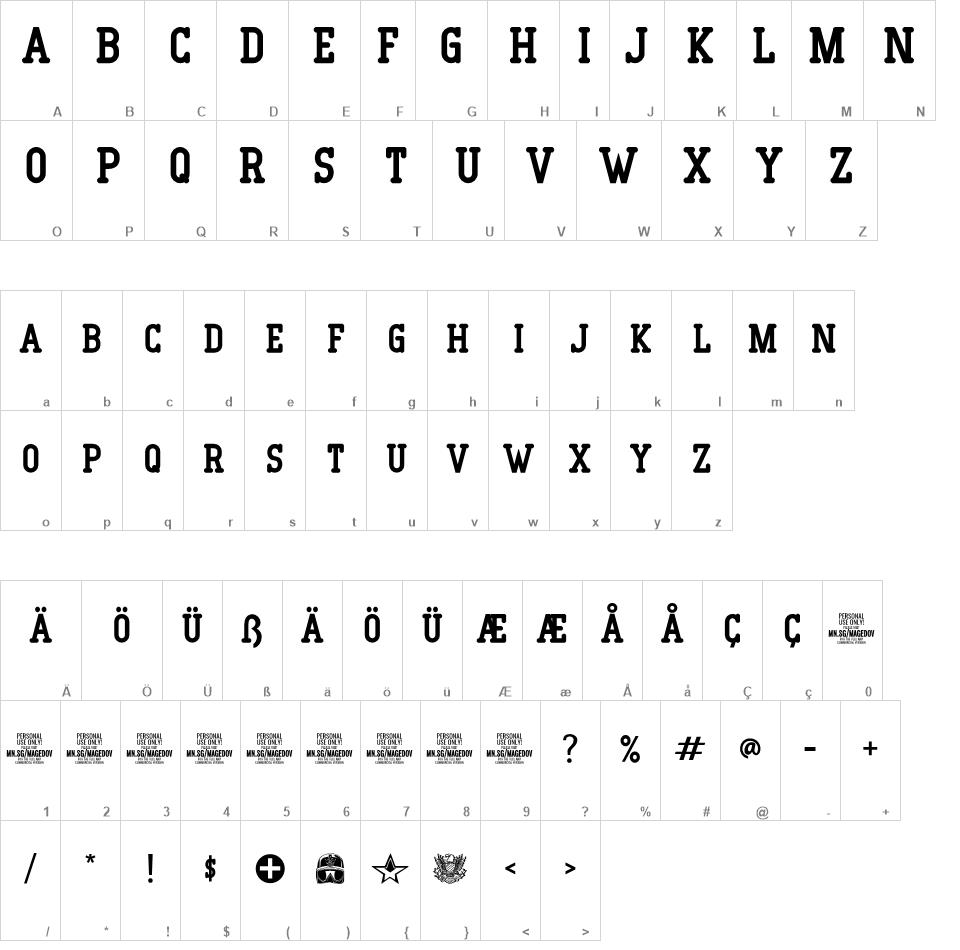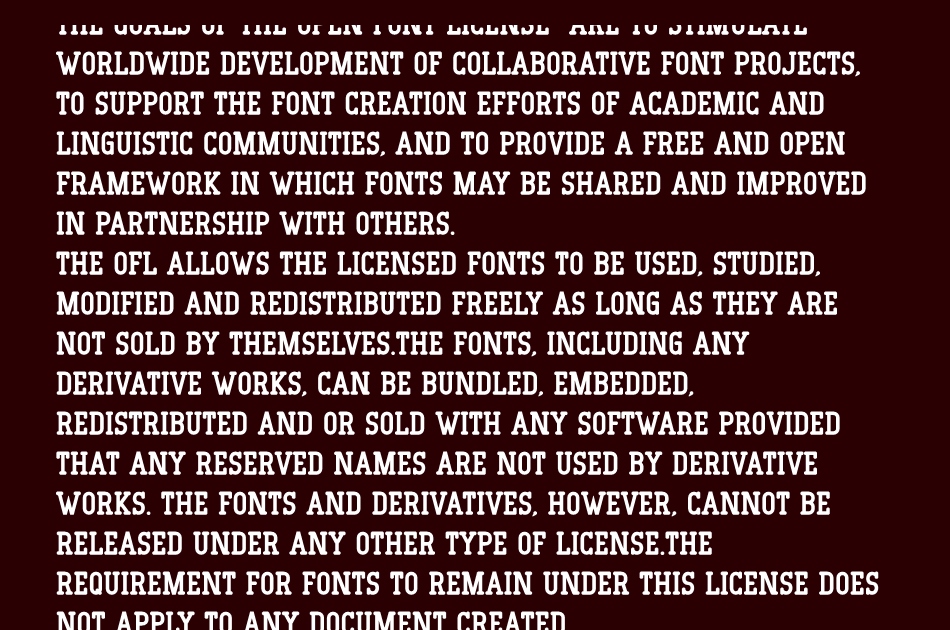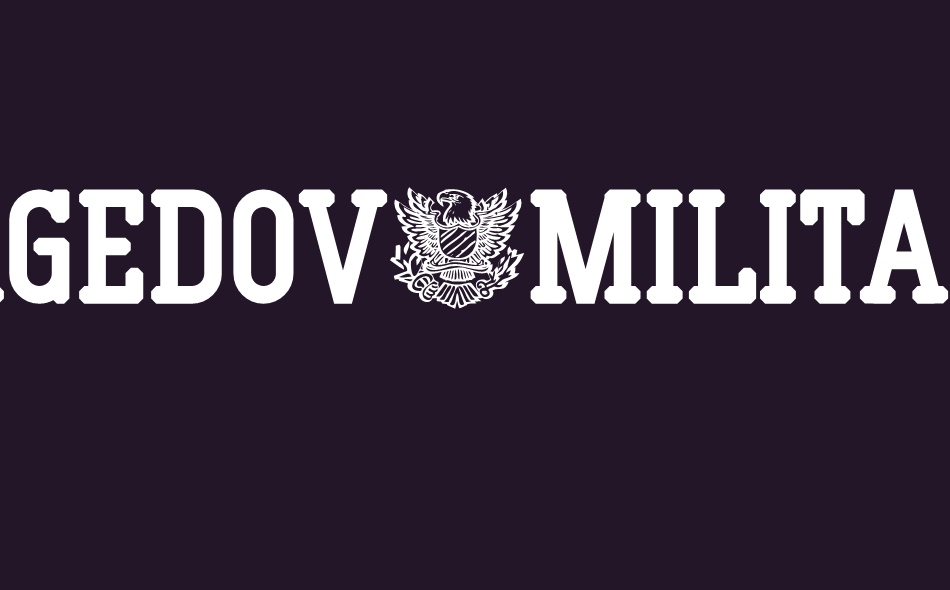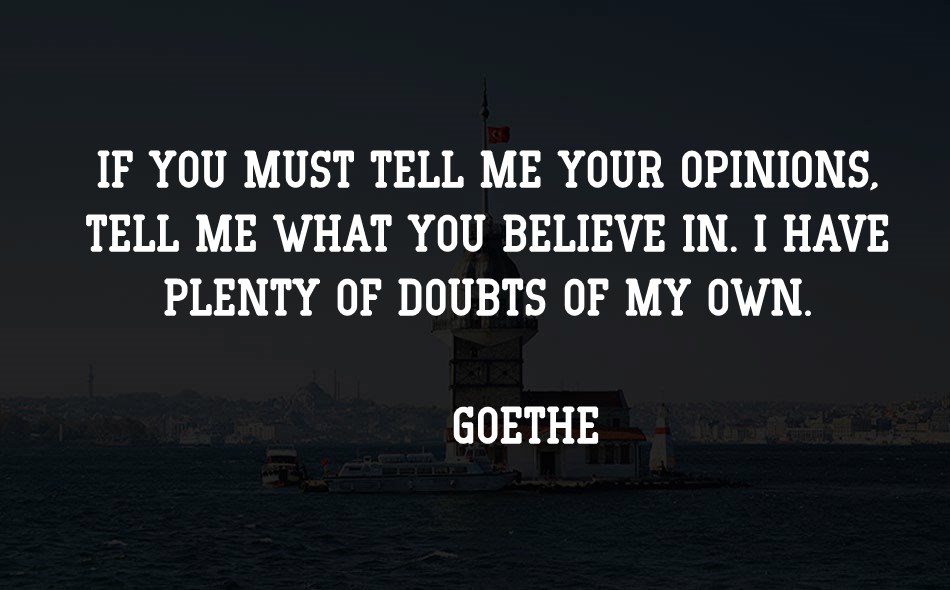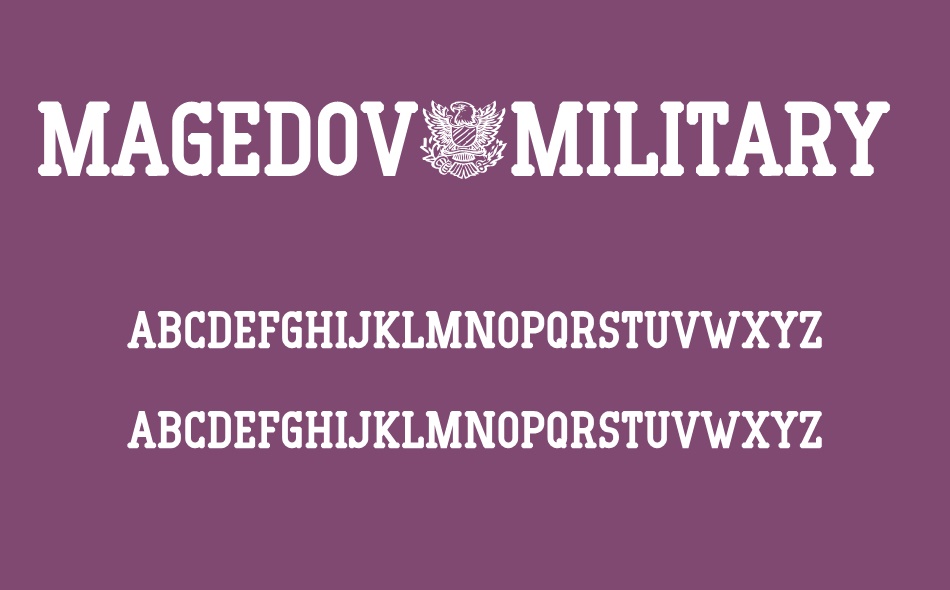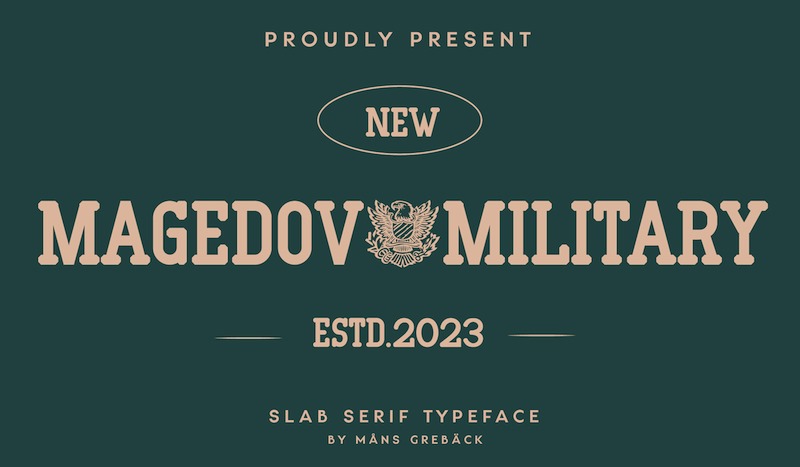
Use the parenthesis symbols ( ) [ ] { } to make decorative elements.
Example: United]States
The Magedov Military font is a strong and robust font that exudes power and authority. It has a sharp, geometric design with bold, hard edges that gives it a strict, army-inspired feel. In a blend of sans and slab serif styles, its unique and versatile look can be utilized for a wide range of projects.
This font is perfect for university or college projects, as its straight and clear-cut design gives it an academic, high-school or college feel. It is also ideal for projects that require a strong and tough look, such as law enforcement, university or sports logos.
Use the parenthesis symbols ( ) [ ] { } to make decorative elements. Example: United]States
The Magedov Military family consists of four high-quality fonts: Regular, Italic, Bold and Bold Italic
The font is built with advanced OpenType functionality and has a guaranteed top-notch quality, containing stylistic and contextual alternates, ligatures and more features; all to give you full control and customizability. It has extensive lingual support, covering all Latin-based languages, from Northern Europe to South Africa, from America to South-East Asia. It contains all characters and symbols you'll ever need, including all punctuation and numbers.